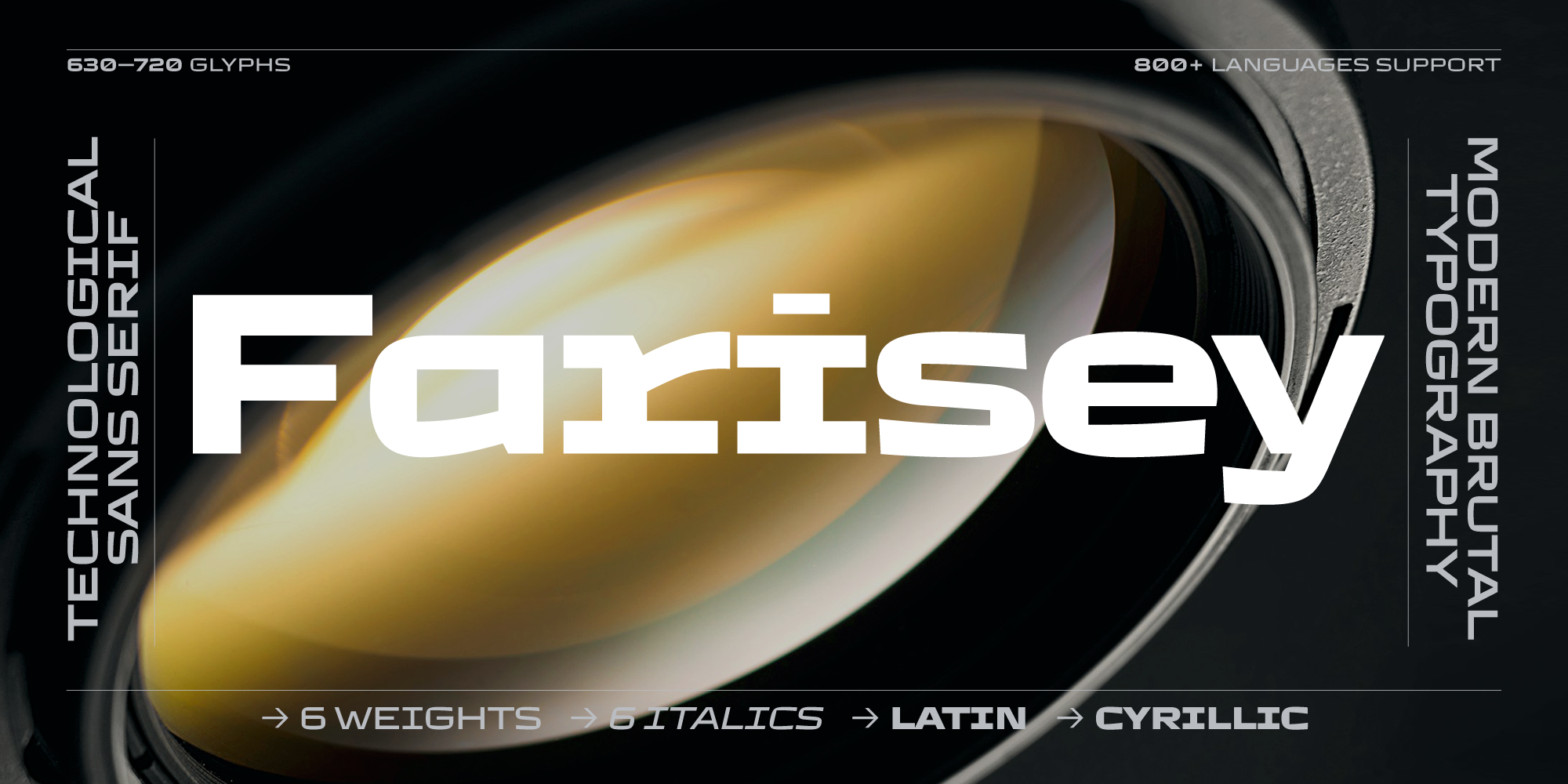
Farisey is a sans serif font family. This typeface has twelve styles and was published by Concepta Digital.
Farisey
Farisey is a versatile tech sans serif family comprising 12 fonts tailored to address diverse design needs. With 6 roman styles, 6 italic styles, and 4 reversed styles, it offers a comprehensive toolkit.
Ranging from 230+ to 490+ glyphs in the basic styles, each font boasts alternates, ligatures, old-style figures, slashed zeroes, and other indispensable features, ensuring it’s equipped for any design challenge.